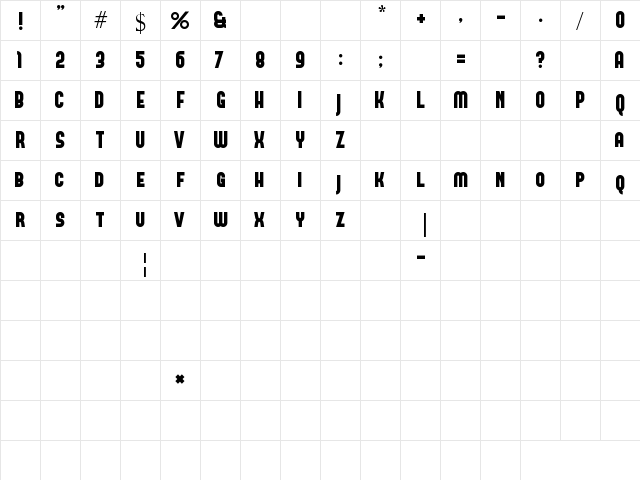
firsttest Regular
DesignerTup Wanders
Design Context for firsttest Typeface
firsttest offers clean, dependable letterforms without strong stylistic allegiance, making it a practical choice for designers who need flexibility.